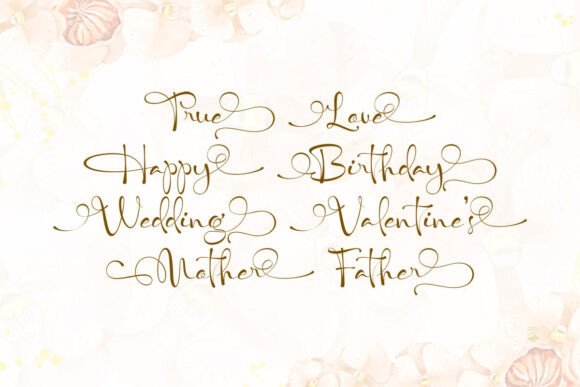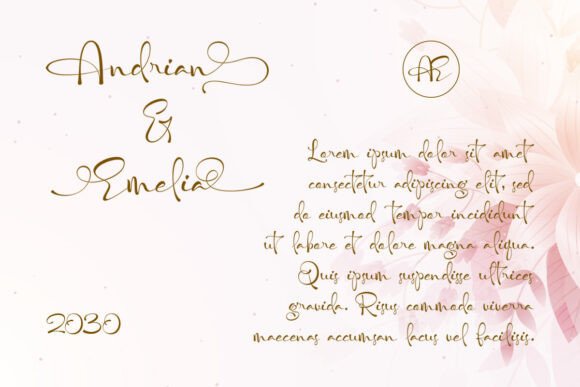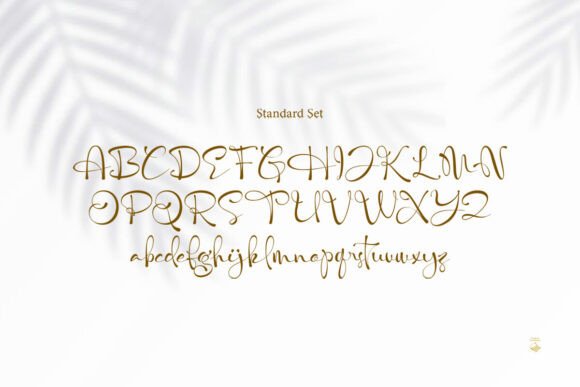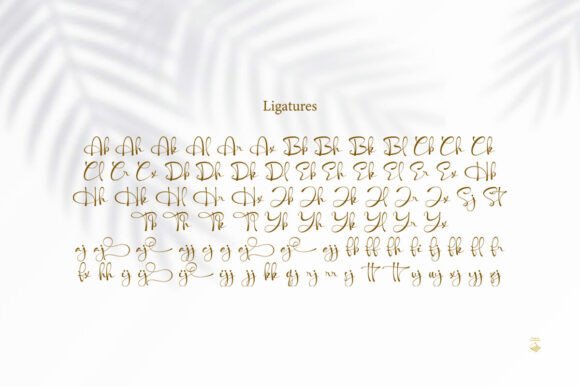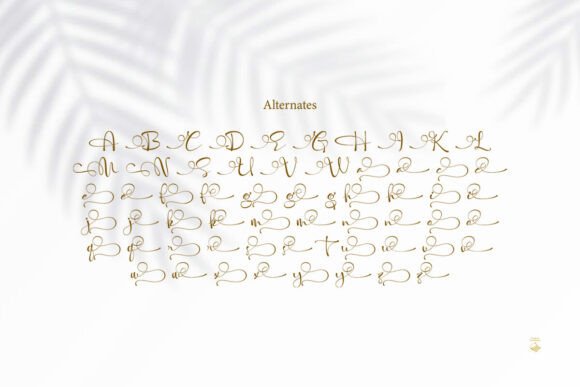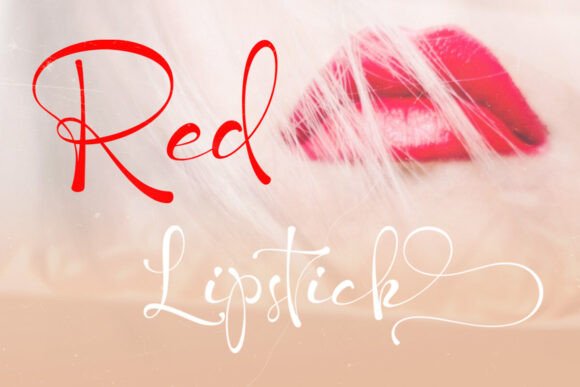
Discover the Elegance of Halone Font: Elevate Your Designs with a Touch of Sophistication
In the world of typography, few fonts manage to capture the essence of elegance and charm as effectively as Halone Font. This handwritten typeface has been making waves in the design community for its stunning and beautiful charm, versatility, and the unique ability to enrich a wide array of design projects. Whether you’re working on eye-catching logos, stylish apparel designs, magazine covers, or refined invitation cards, Halone Font is the perfect companion to help your projects stand out.
The Allure of Halone Font
Halone Font boasts a blend of elegance and calming warmth that is hard to find in other typefaces. Its handwritten nature gives it a personal and approachable feel, making it ideal for designs that require a touch of sophistication without appearing too formal. This balance of refinement and warmth allows designers to create projects that are not only visually appealing but also convey a sense of personality and charm.
One of the key advantages of Halone Font is its incredible versatility. It can seamlessly adapt to various design needs, making it a valuable asset for designers who work on a wide range of projects. Here are just a few ways Halone can elevate your designs:
• Logos: Create memorable and impactful logos that capture the essence of your brand. Halone’s elegant strokes and charming personality make it perfect for businesses looking to establish a sophisticated and approachable image.
• Apparel Designs: Stand out in the fashion world with stylish and unique apparel designs. Halone’s handwritten charm adds a personal touch to clothing, making each piece not just wearable art but also a statement.
• Magazine Covers: Draw readers in with magazine covers that pop. Halone’s ability to convey elegance and warmth can help create eye-catching titles and subtitles that promise an engaging read.
• Invitation Cards: Make your invitations unforgettable with a touch of Halone’s sophistication. Perfect for weddings, parties, and corporate events, Halone can help set the tone for an elegant and memorable occasion.
Adding a Creative Spark
Halone Font doesn’t just complement your designs; it elevates them. Its allure has the power to transform any project into an artistic masterpiece. When used in bold headlines or eye-catching flyers, Halone adds a creative spark that can make your work truly unforgettable. This ability to infuse designs with a unique charm is what sets Halone apart from other fonts and makes it a go-to choice for designers looking to leave a lasting impression.
Why Designers and Crafters Love Halone Font
Designers and crafters around the world have fallen in love with Halone Font for its unique combination of elegance, warmth, and versatility. Here are a few reasons why:
• Ease of Use: Halone is incredibly easy to use, even for those who are new to design. Its clear and flowing strokes make it simple to read and work with, ensuring that your design process is smooth and hassle-free.
• Customization: With Halone, the possibilities for customization are endless. Experiment with different sizes, colors, and combinations to find the perfect fit for your project.
Font Name Halone Font
Author haniefart
Halone Font is more than just a typeface; it’s a design companion that can help bring your creative visions to life. With its stunning charm, elegance, and versatility, Halone has the power to transform your projects into expressive works of art. Whether you’re a seasoned designer or a crafter looking to add a professional touch to your work, Halone Font is an invaluable resource. Let Halone sprinkle its magic into your designs and watch as each project evolves into something truly special.